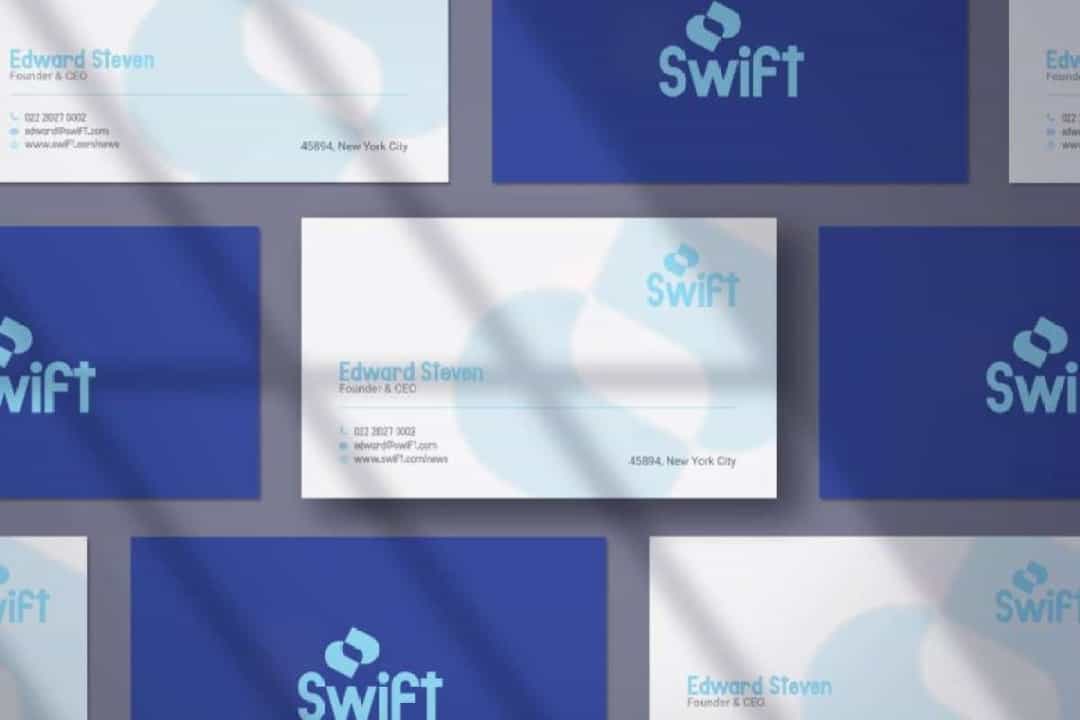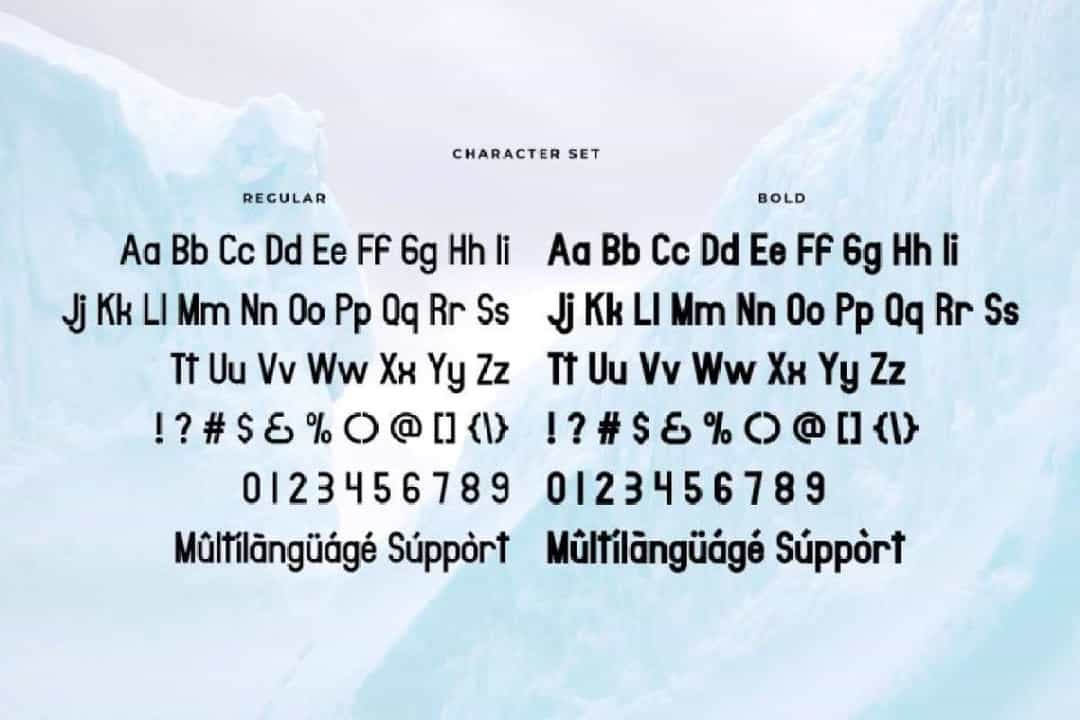
Antarctica Font was designed by RaisProject and can be used for any project requiring minimalist designs, such as magazines, branding materials, advertising signs, invitations and stationery as well as social media posts labels or any other projects requiring unique typographic styles.